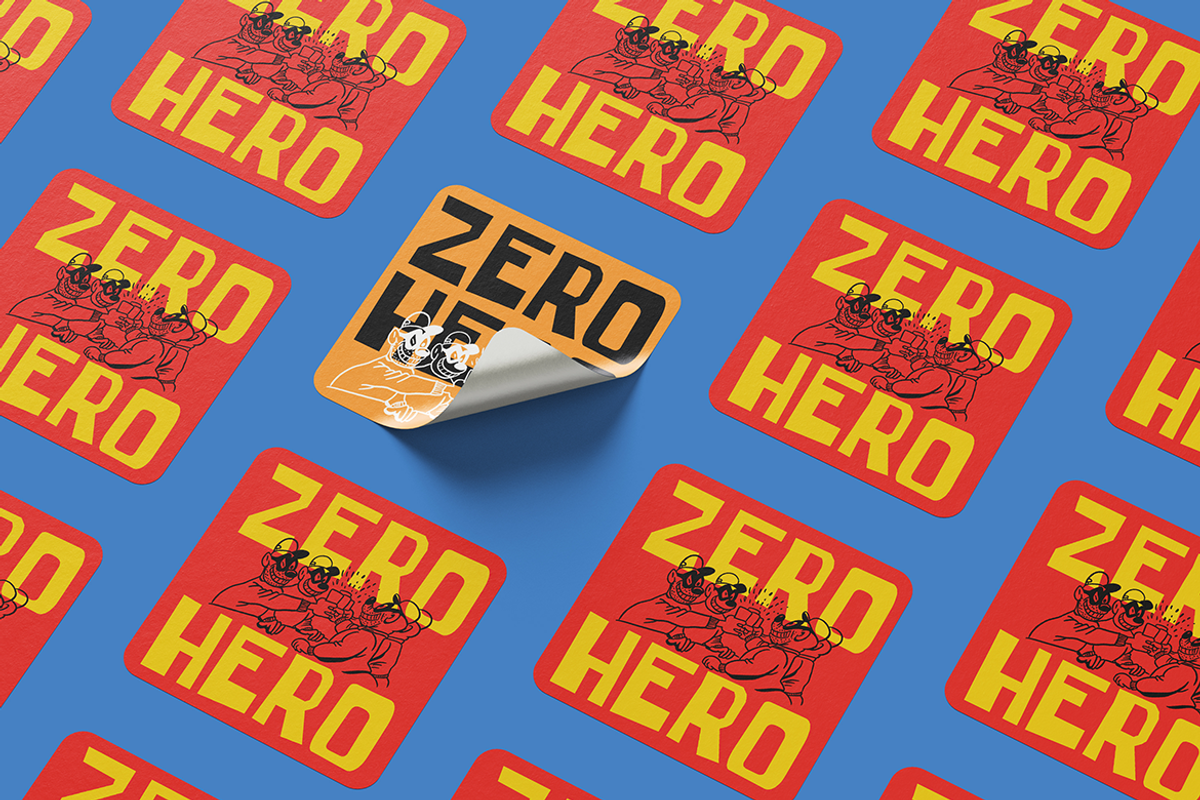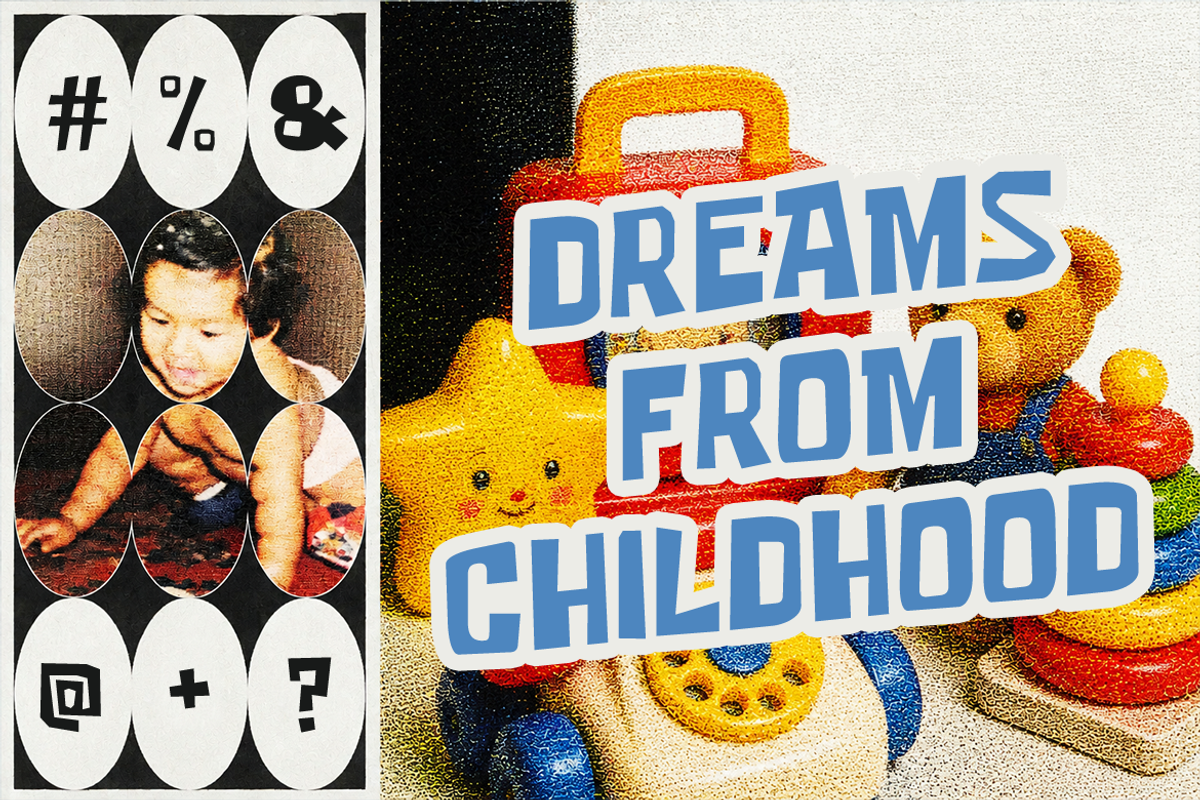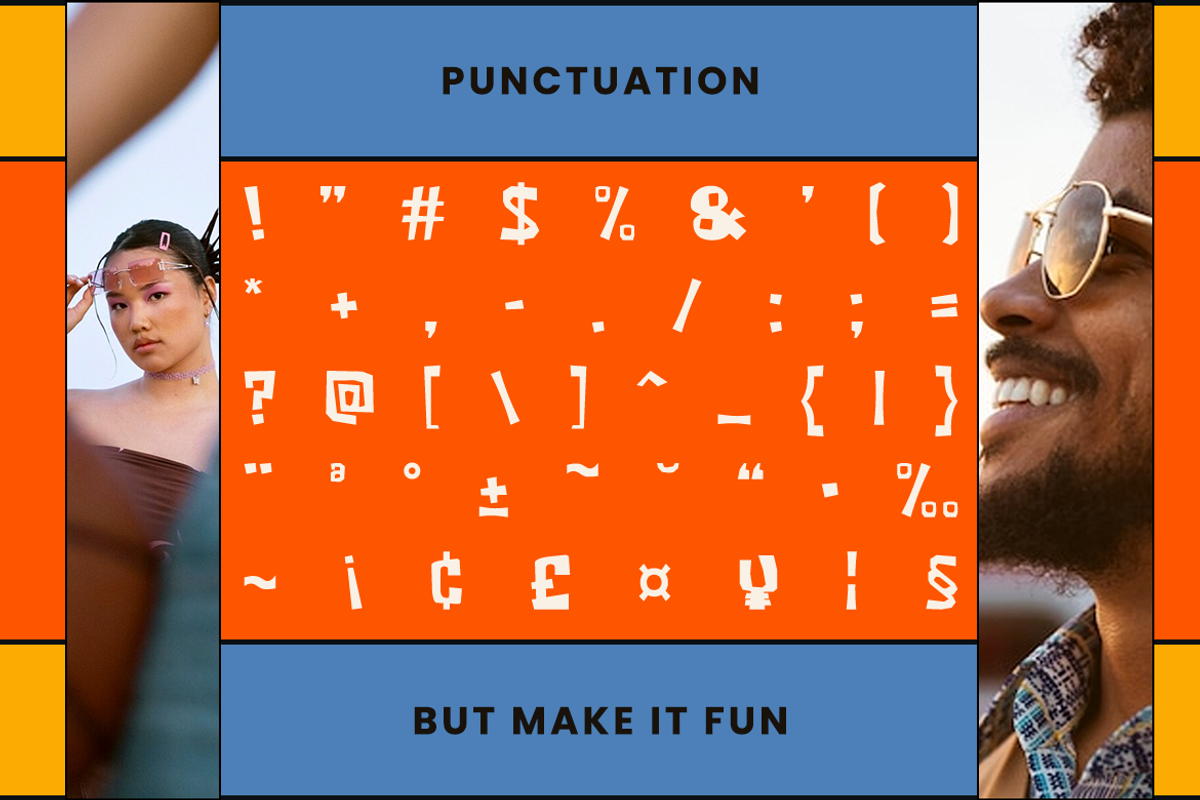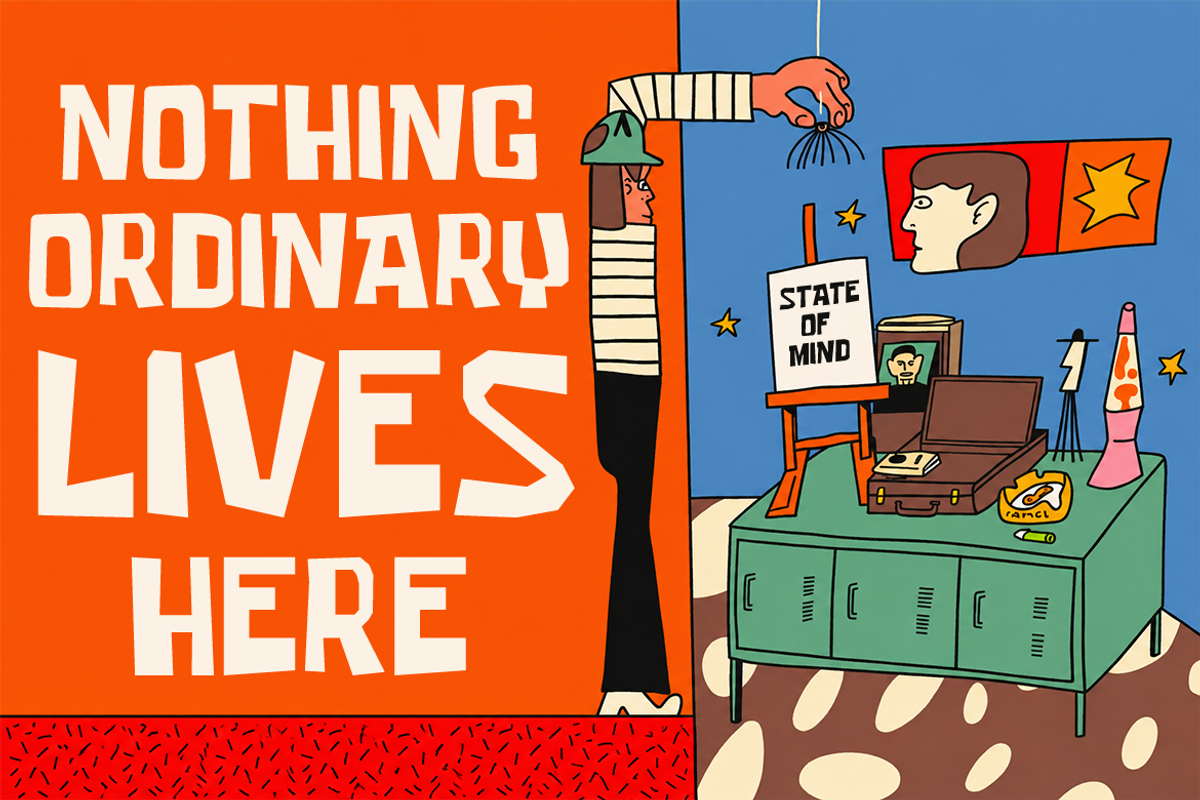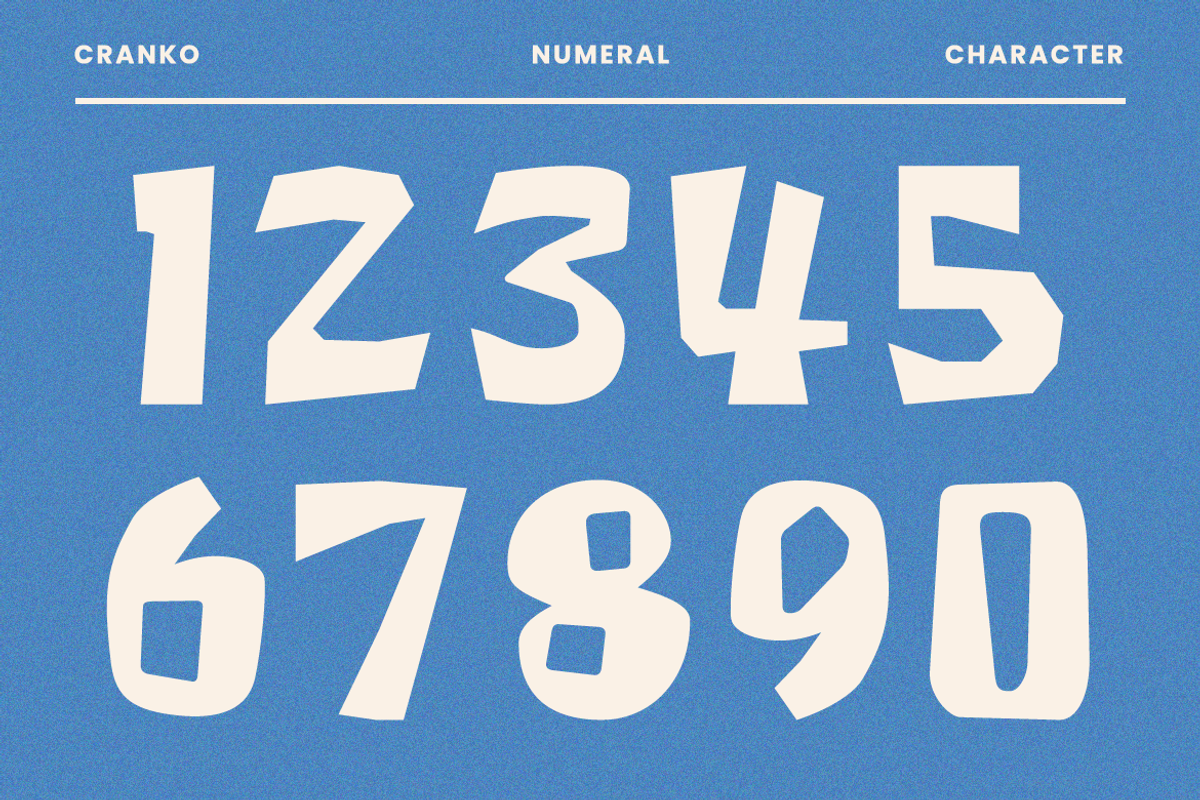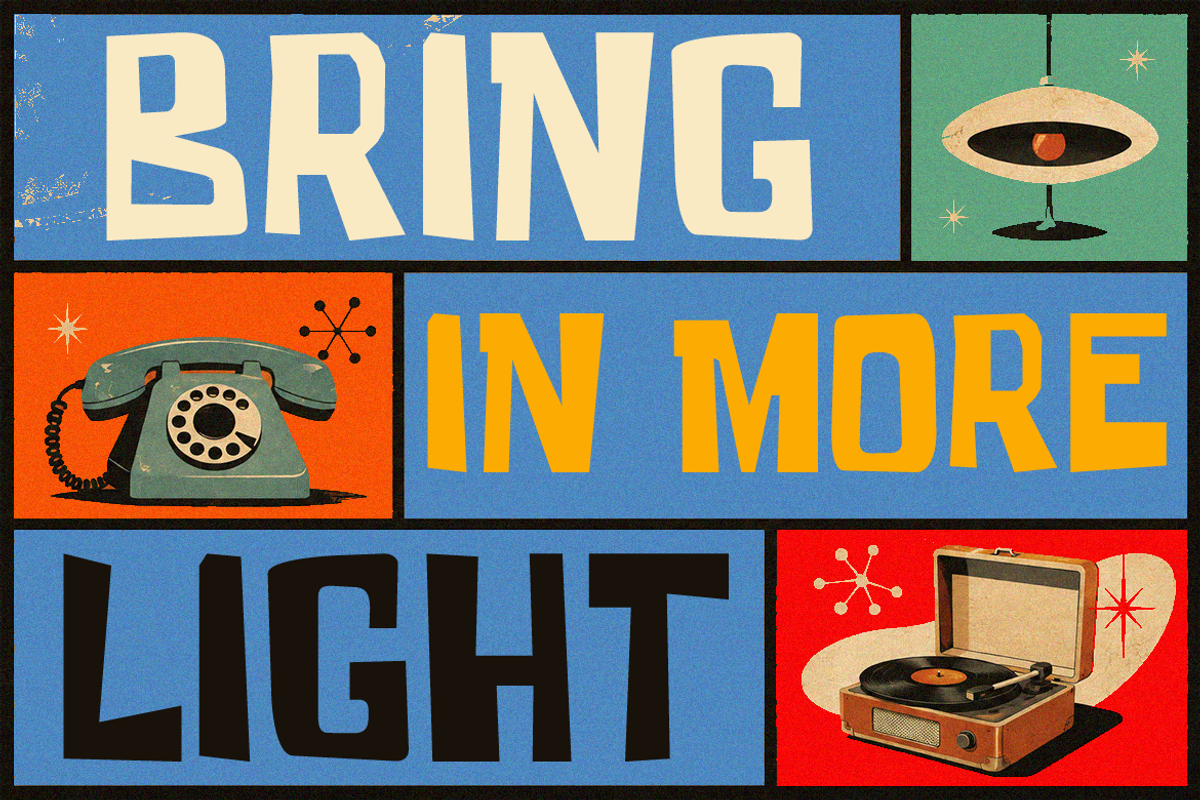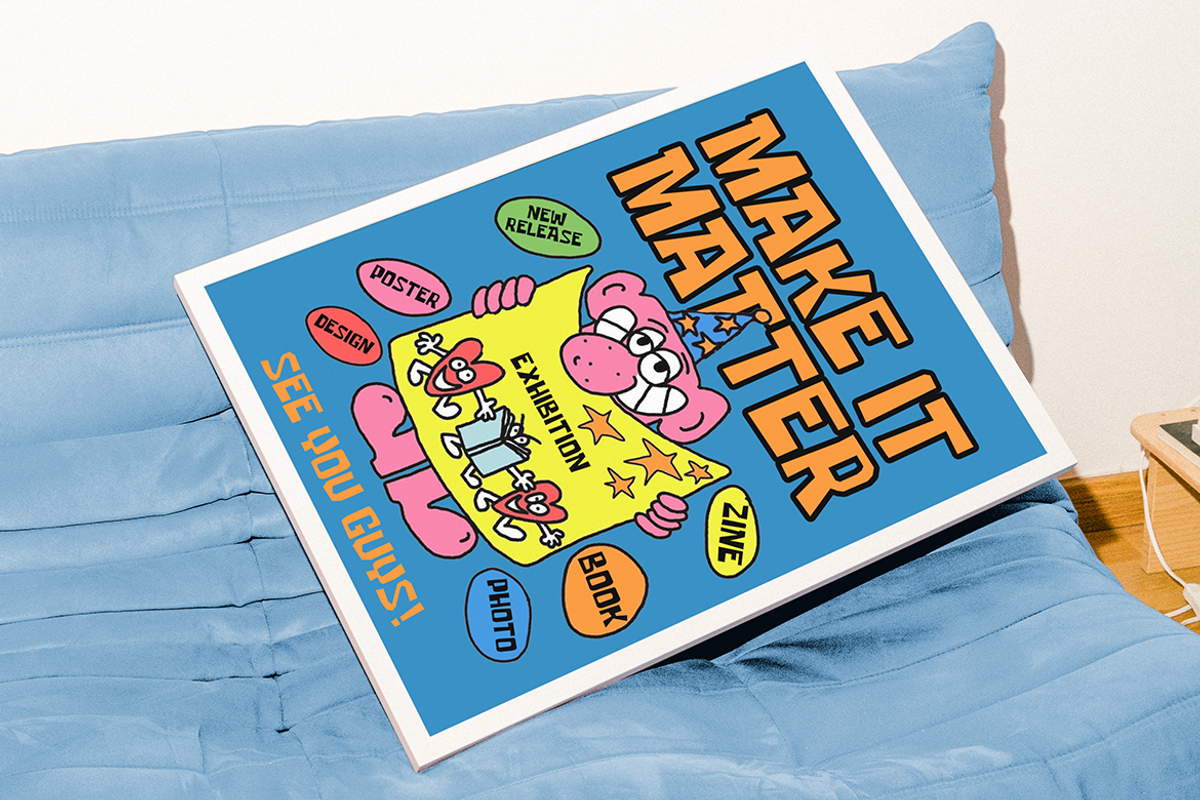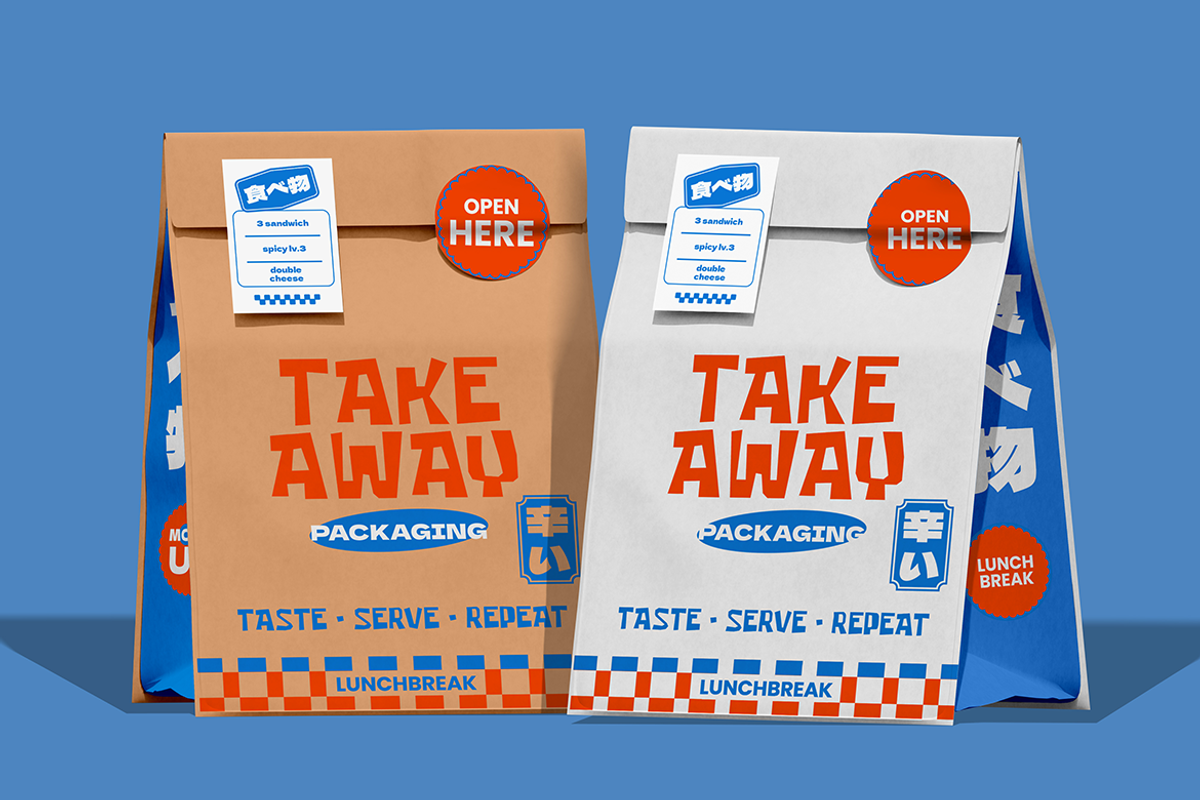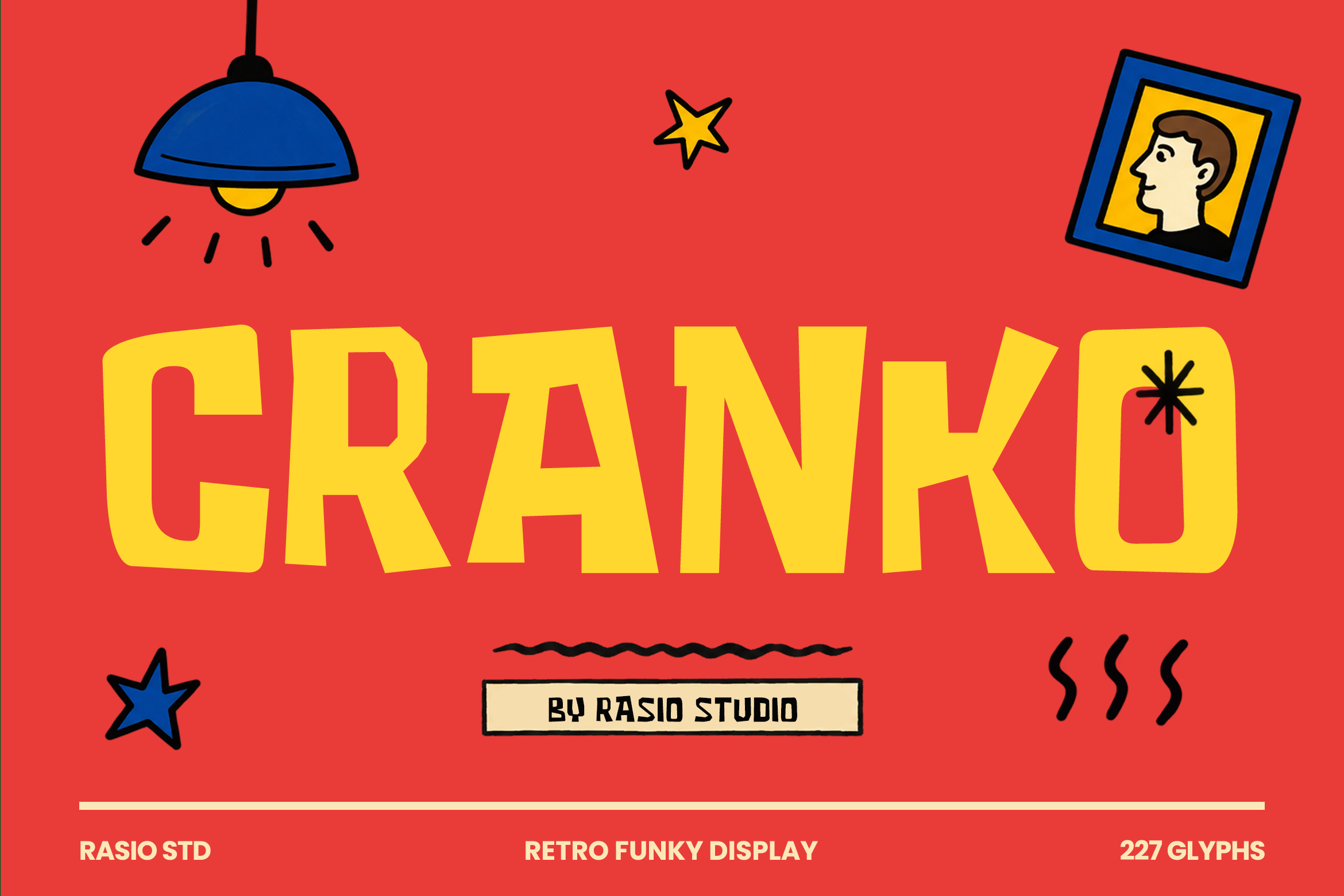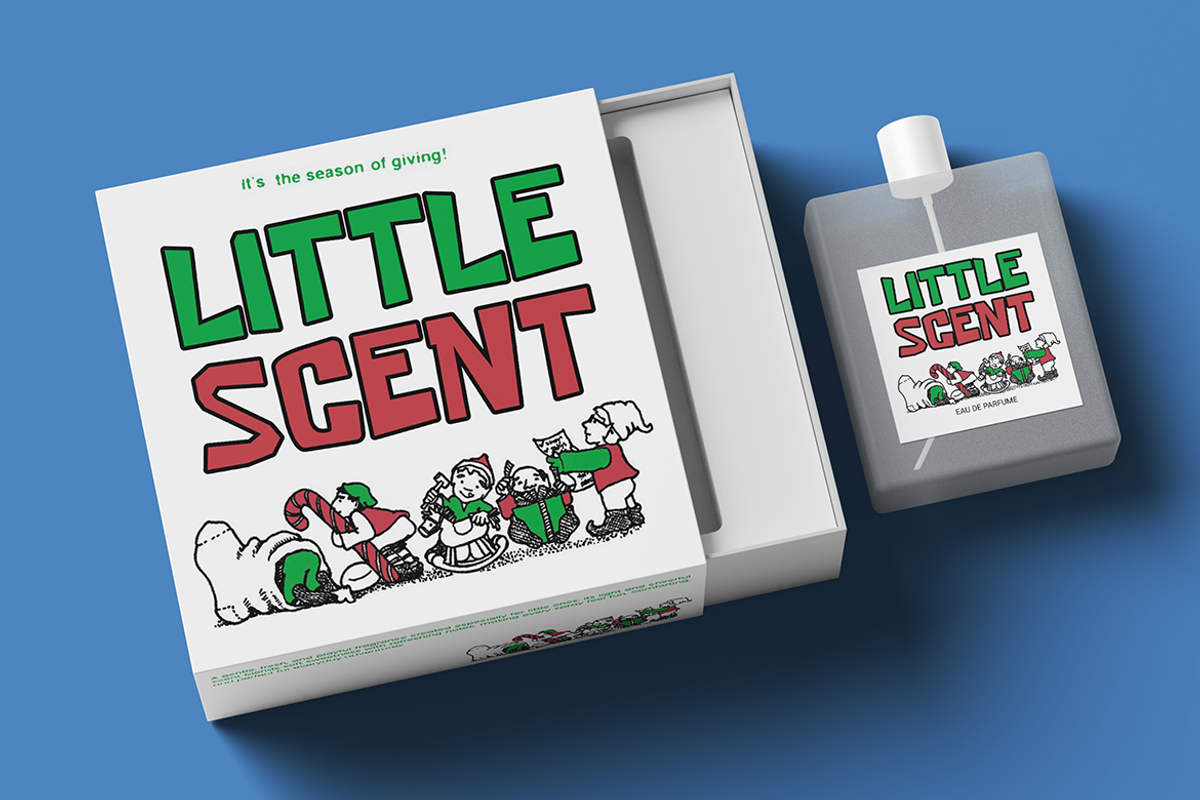
Cranko Retro Funky Display Font
Cranko Retro Funky Display Font is a retro funky display font built around bold, irregular letterforms and a playful graphic personality. The uppercase and lowercase characters feature intentionally uneven proportions, angular cuts, and expressive shapes that give the typeface a handcrafted retro appearance while maintaining a strong, readable silhouette. Its distinctive construction makes ordinary words feel more dynamic and gives typography a strong visual presence in creative compositions.
Cranko can be used by designers as a logo design, branding projects, retro posters, advertising campaigns, product packaging, apparel and merchandise graphics, event artwork, social media designs, editorial headlines, stickers, labels, badges, creative campaigns, and decorative typography. It is particularly useful when designers want to create a bold visual statement with a playful retro character rather than a conventional or formal typographic style. For example, a designer can place a single word in oversized Cranko lettering across the center of a poster, combine it with simple illustrations and retro shapes, or use it as the main identity element of a product label.
Bold funky display style with playful, irregular character forms
Chunky letterforms create a strong and energetic visual presence
Angular cuts and varied shapes add a distinctive handmade feel
Compact proportions make headlines visually striking and memorable
Retro-inspired details bring a fun vintage character to modern designs
Retro branding, logos, and visual identities with a bold personality
Posters, album covers, and editorial designs with playful typography
Product packaging, labels, and merchandise with a funky vintage feel
Social media graphics, campaign visuals, and promotional artwork
T-shirt designs, stickers, badges, and other creative merchandise
Supports numerals, punctuation, and extensive symbol set